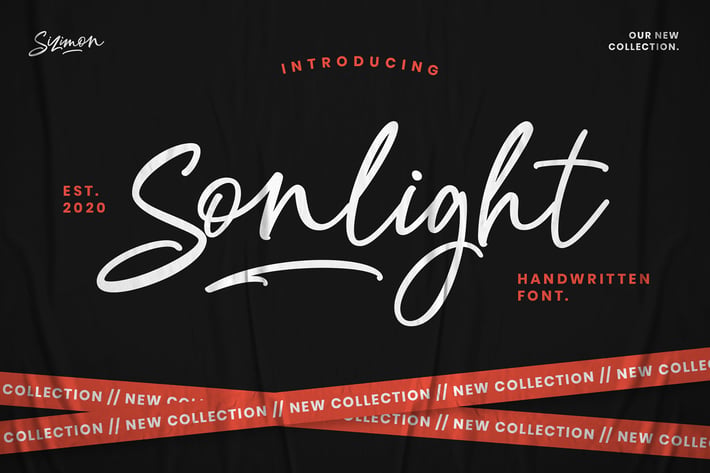
Sonlight Script Font
Sonlight Script is a modern Handwritten font. It is modernity, and friendly. Sonlight a beautiful for logotype, website header, fashion design, and any more. It contains a full set of lower & uppercase letters, a large range of punctuation, numerals, and multilingual support.
- Uppercase, lowercase, numeral, punctuation & Symbol
- Multilingual support
- 160 Standard Ligatures and Discretionary Ligatures